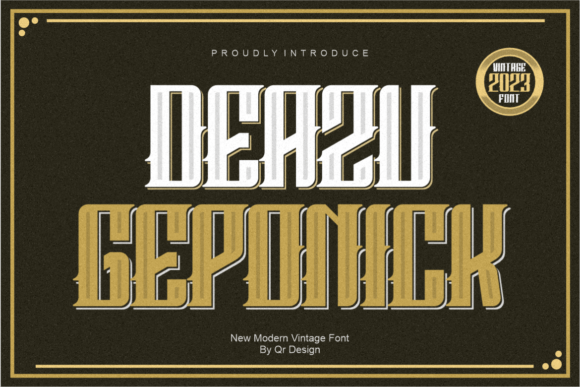
Journey through a Realm of Bold Expression with Deazu Geponick: Unleash the Mystique of All-Caps Blackletter
Step into the world of authentic typography as you discover Deazu Geponick, a captivating all-caps blackletter font crafted by qrdesignstd. This remarkable font exudes an aura of strength and boldness, ready to elevate your creative projects to new heights.
Unleash the Power of Versatility: From Logos to T-shirts and Beyond
Deazu Geponick's versatility knows no bounds. Whether you're crafting a majestic logo that commands attention, designing a t-shirt that speaks volumes, or embarking on an e-sport venture, this font is your steadfast companion. Its adaptability shines in a multitude of contexts, ensuring your message resonates with impact.
Embrace the Essence of Timeless Beauty: A Legacy of Enduring Style
Immerse yourself in the timeless elegance of Deazu Geponick, a font that draws inspiration from centuries-old lettering traditions. Its blackletter roots bestow a touch of classicism and sophistication, while its modern interpretation breathes new life into this age-old art form. With Deazu Geponick, your creations transcend time, leaving an indelible mark on the hearts and minds of your audience.
Ignite Your Imagination: A Font that Inspires Creativity
Let Deazu Geponick ignite the spark of creativity within you. This font is a muse, a catalyst for boundless imagination. Its bold strokes and intricate details invite you to explore uncharted territories of design, to push boundaries and break free from convention. With Deazu Geponick as your ally, your creative potential knows no limits.